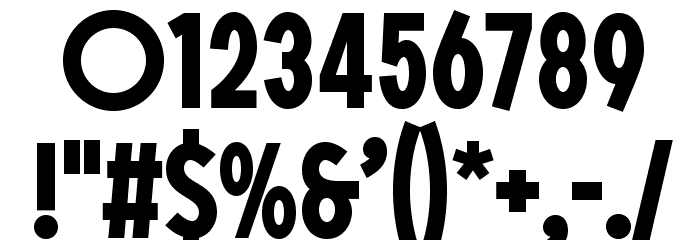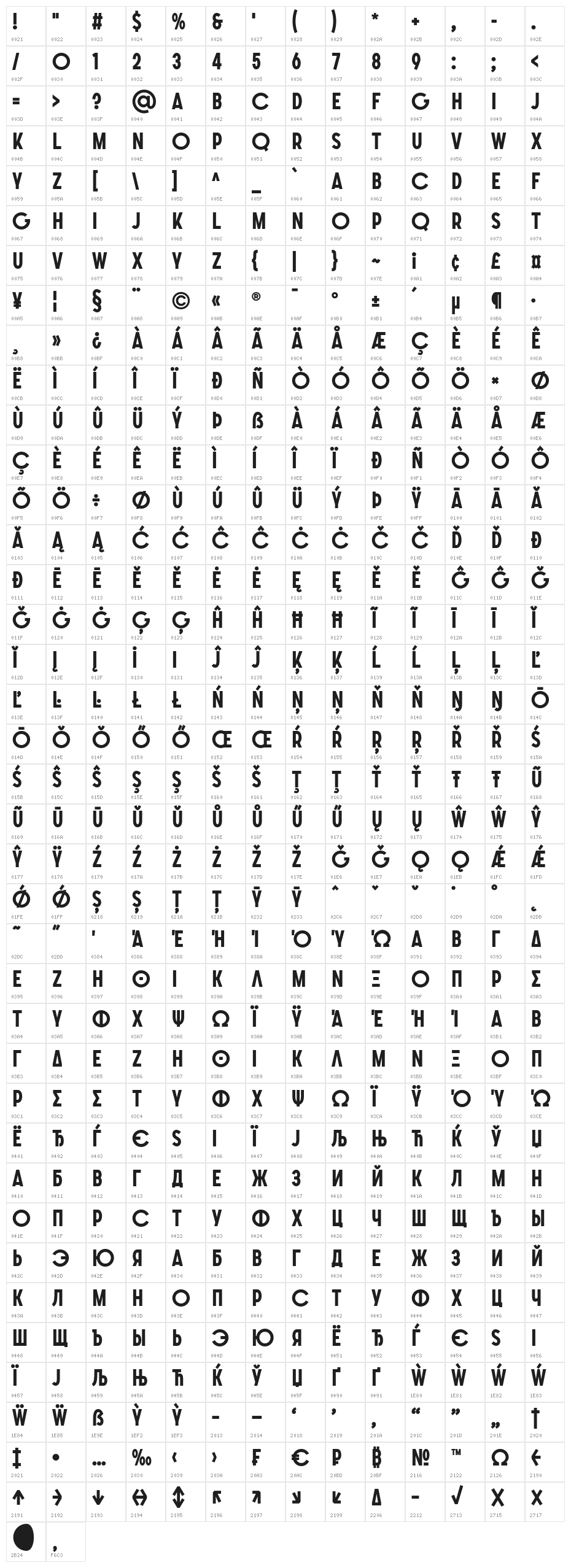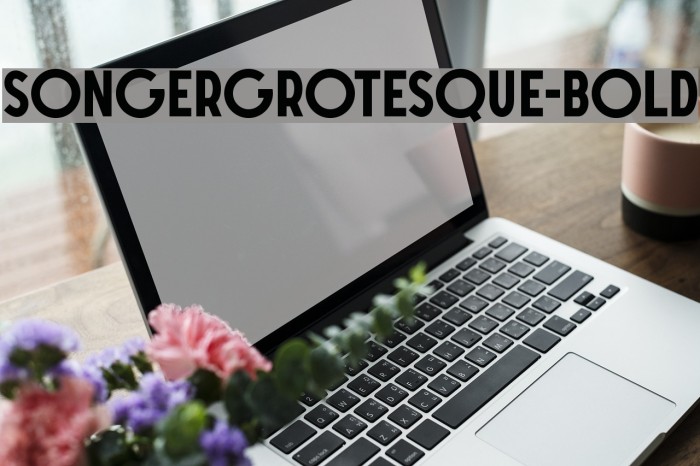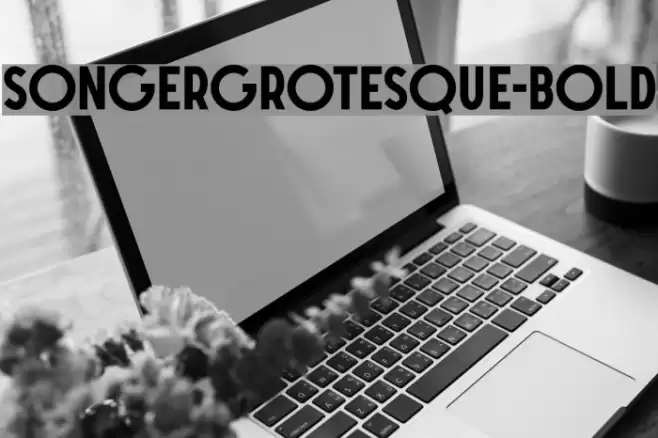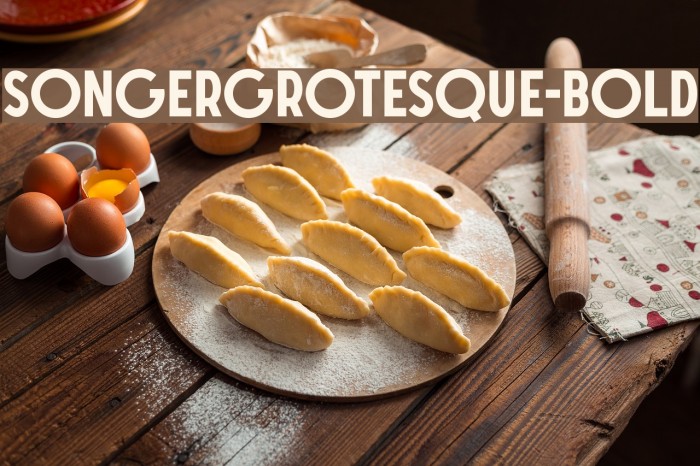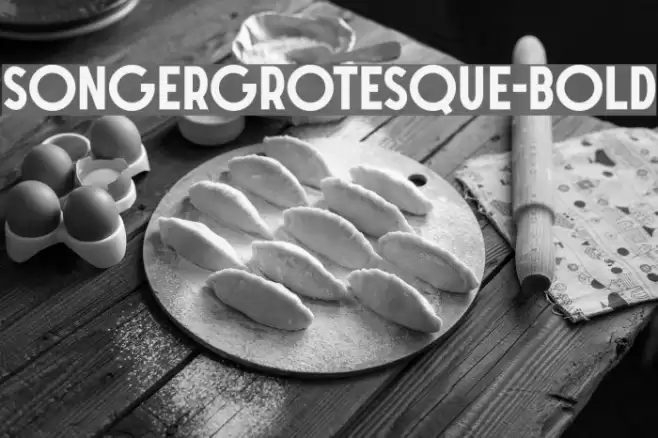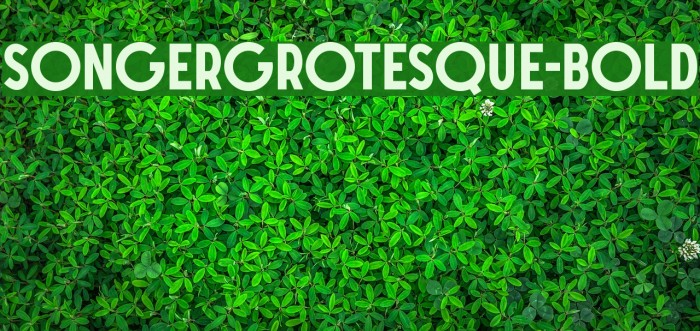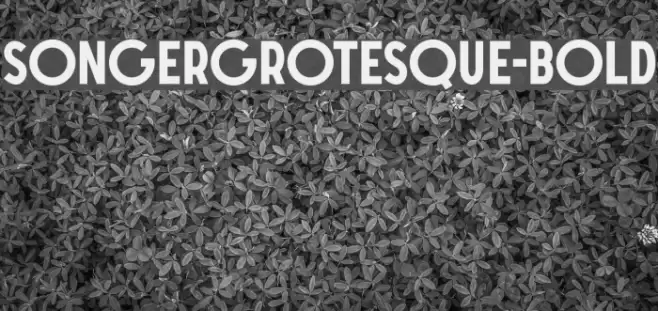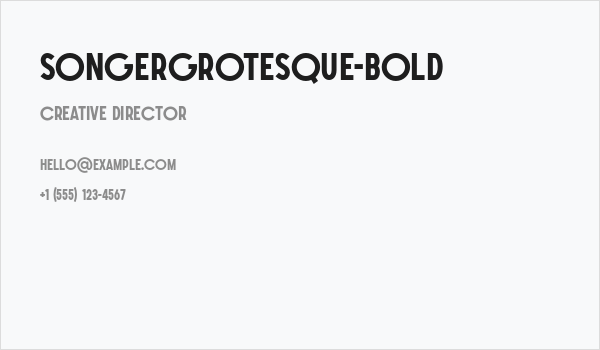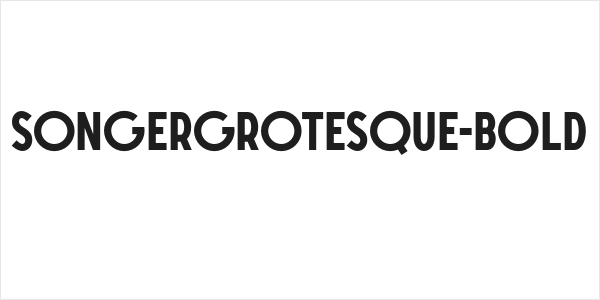
SONGERGrotesque-Bold Font
SONGERGrotesque-Bold Description
This font is a bold, sans-serif typeface characterized by its strong, geometric shapes and clean lines. The uppercase letters are uniform in height, creating a cohesive and balanced appearance. The lowercase letters maintain the same boldness, ensuring readability and impact. The numbers are equally bold and consistent, making them suitable for various design applications. Special characters are included, maintaining the same weight and style, which adds versatility to the font. The overall design is modern and assertive, making it ideal for attention-grabbing headlines and branding projects.
| Proposed Projects | Ideal for branding, advertising, headlines, posters, and any project requiring a bold, modern typeface. |